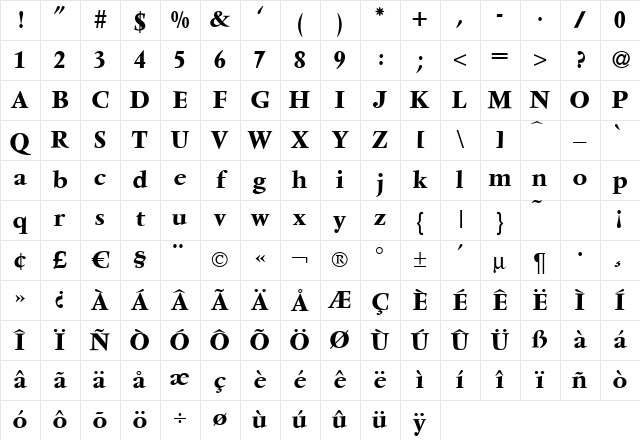
V691-Roman Bold
Design Context for V691-Roman
V691-Roman is a composed and adaptable typeface that performs quietly and consistently across a wide range of design contexts. Its bold stroke weight gives it real presence on the page.